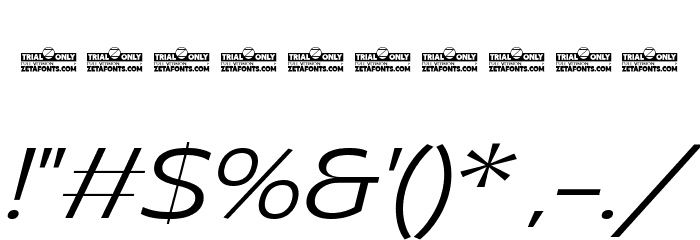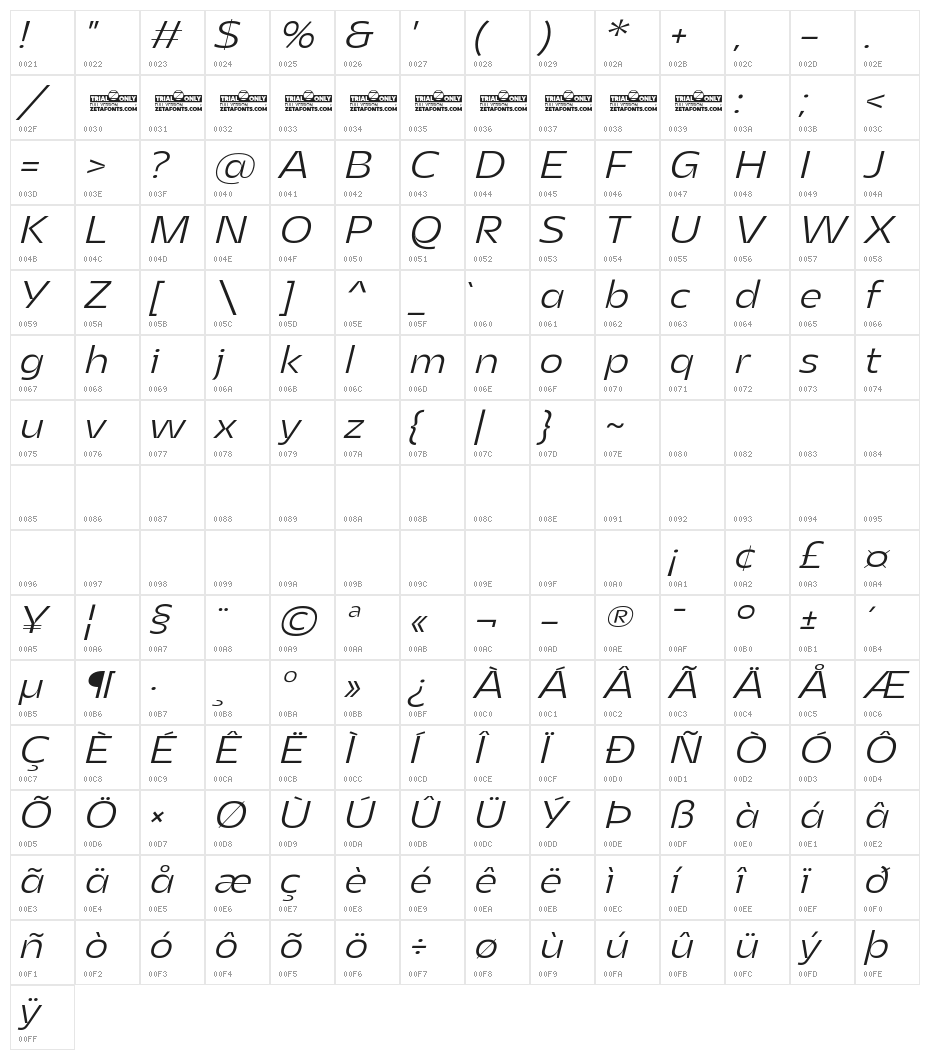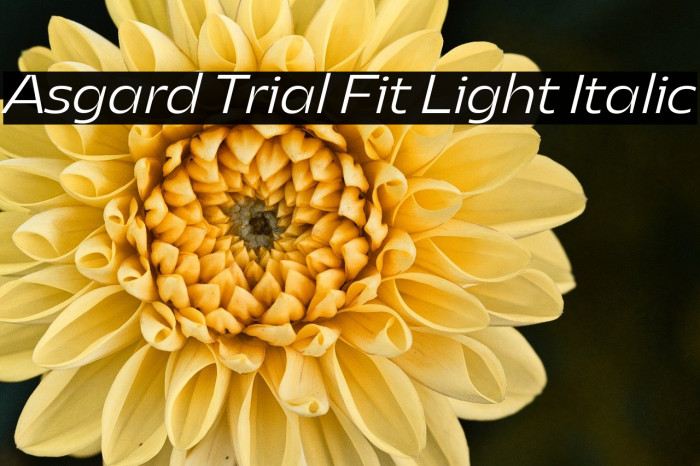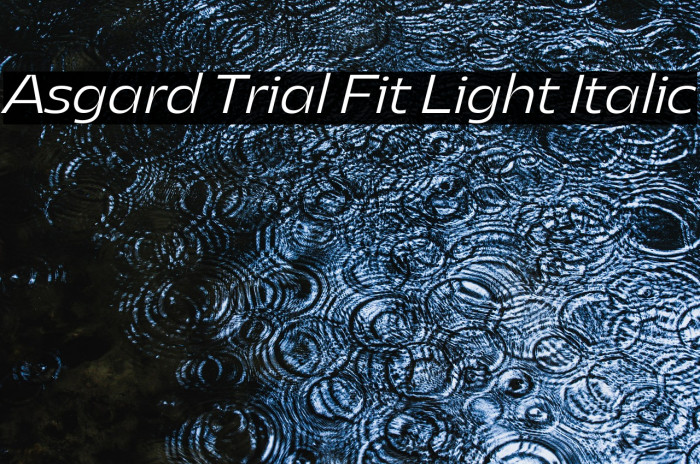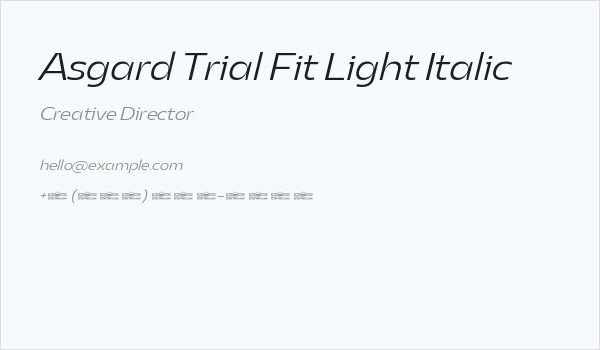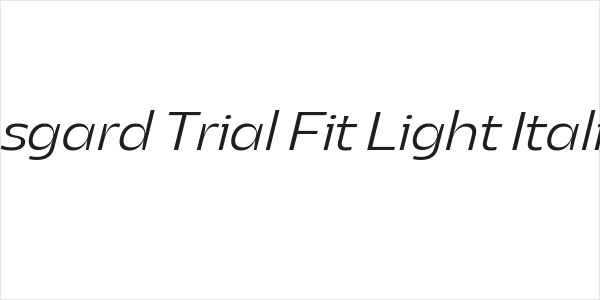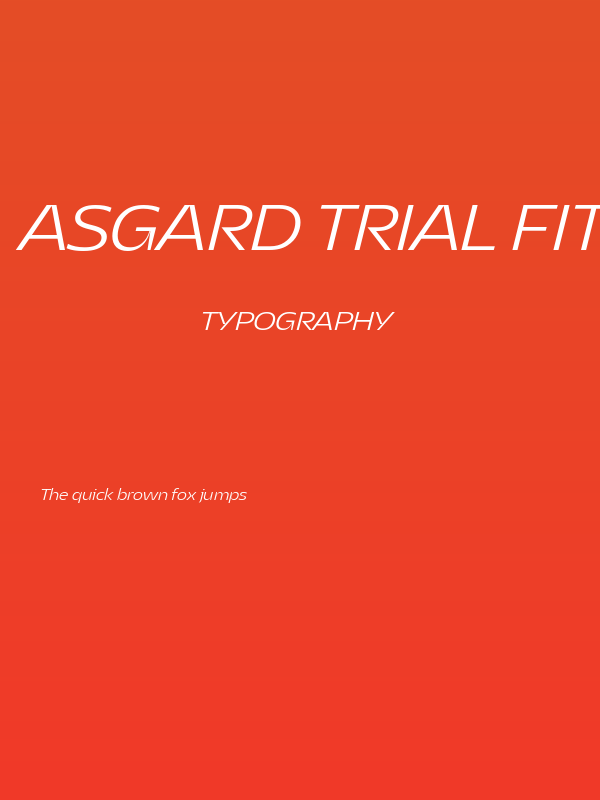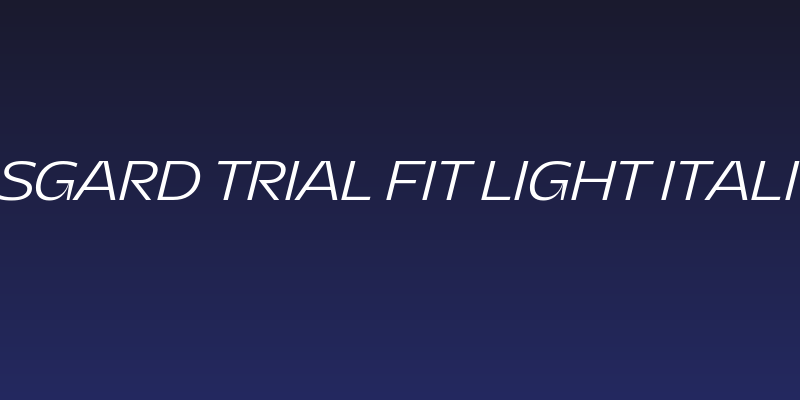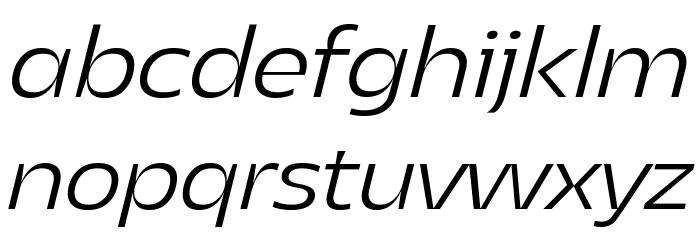
Asgard Trial Fit Light Italic Font
Asgard Trial Fit Light Italic Description
This font features a sleek, modern design with a light weight and italic style. The characters are elegantly slanted, providing a sense of motion and fluidity. The clean lines and minimalistic approach make it suitable for contemporary designs. The uppercase and lowercase letters maintain a consistent style, with a slight curvature that adds a touch of sophistication. The numerals and special characters are designed to complement the overall aesthetic, ensuring versatility across various applications.